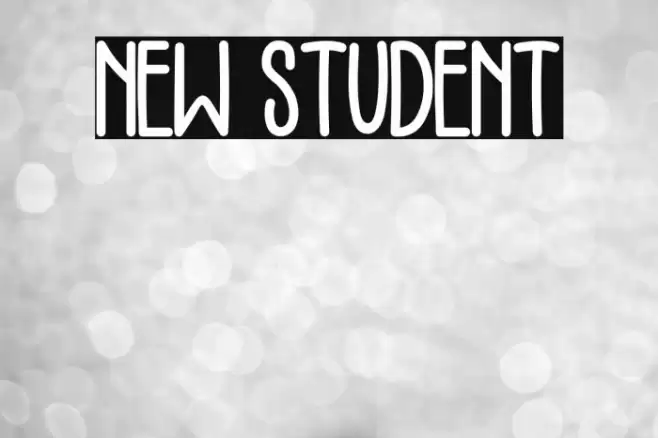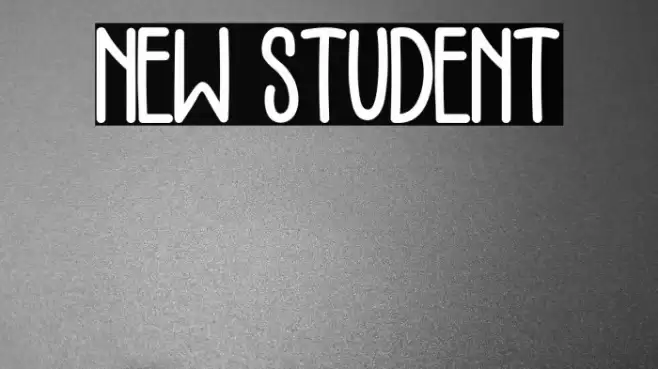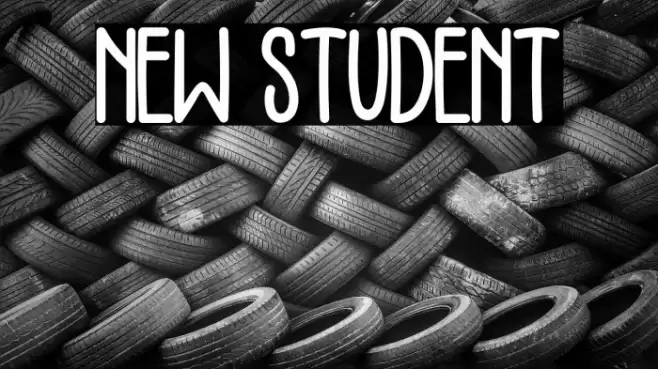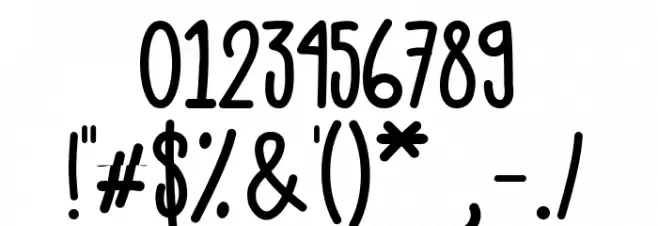
NEW STUDENT Font
NEW STUDENT Description
This playful and rounded font features a handwritten style with smooth curves and a friendly appearance. The uppercase letters are bold and slightly elongated, while the lowercase letters maintain a consistent flow with a casual, approachable feel. The numerals are clear and easy to read, complementing the overall style. Special characters are well-integrated, maintaining the font's cohesive look. This font is ideal for projects that require a personal touch, such as invitations, greeting cards, or children's books. Its informal style makes it suitable for creative and fun designs.
A playful, rounded handwritten font with a friendly and approachable style from Uncategorized fonts.
- Proposed Projects: Ideal for invitations, greeting cards, children's books, and creative designs.
- Overall Style: Playful, Casual
- Use Case: Headlines, Creative projects, Informal text